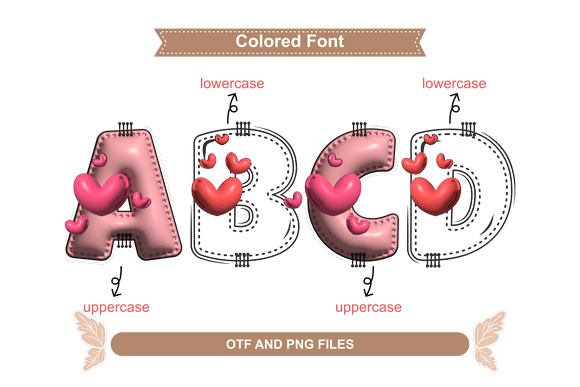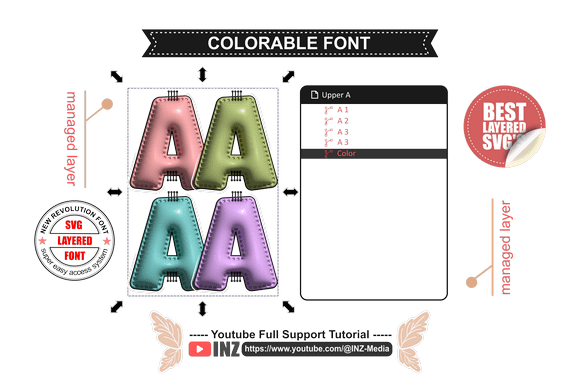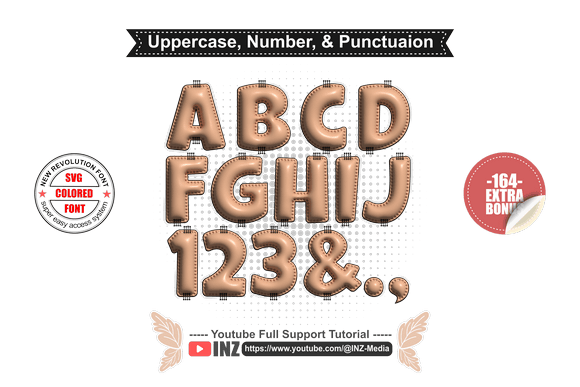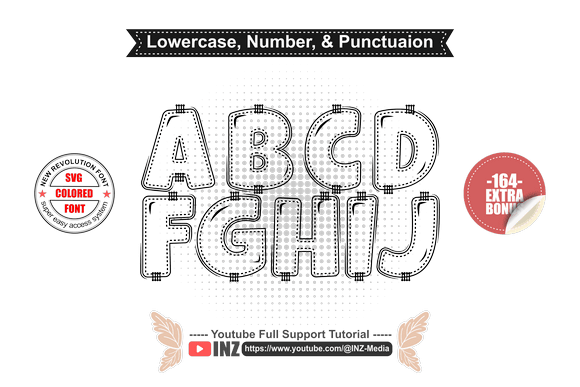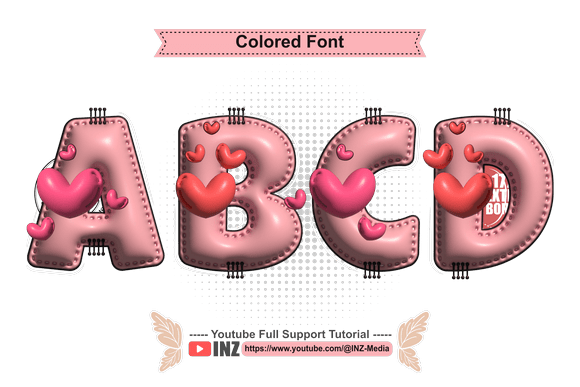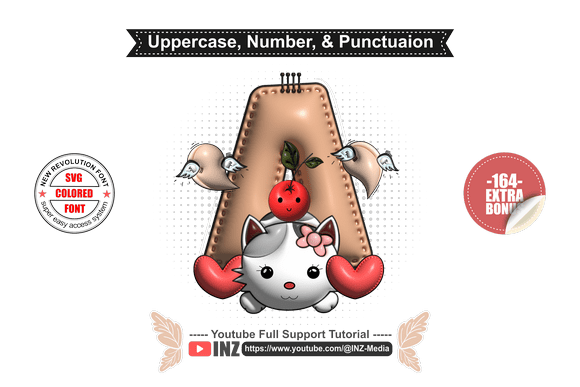
Adding a Pop of Personality with 3D Baloon Font
Have you ever been brainstorming ideas for a creative project and suddenly, a burst of inspiration hits you? Maybe it’s a bright color, a playful texture, or a unique typography that sparks your imagination. For designers, it’s that one element that can make all the difference between a good design and a great one.
One such typography that can add that extra oomph to your designs is the 3D Baloon Font. This cheerful typeface is designed to bring a touch of 3D charm to your work, making it perfect for posters, invitations, school projects, greeting cards, or creative artwork. With its playful and colorful feel, the 3D Baloon Font is a valuable addition to any designer’s toolkit.
Key Features of 3D Balloon Font
- Unique 3D Effect: The font features a unique 3D balloon effect, giving it a playful and eye-catching appearance.
3D Balloon Font Review
I recently had the chance to play around with the 3D Balloon Font, and I’m here to share my honest thoughts. ✨ One thing I really like about this font is its unique and playful vibe. It’s perfect for adding a pop of fun to any design project. The 3D effect adds a nice depth and dimension to the text, making it stand out.
Another great thing about this font is its versatility. It works well for both digital and print designs, and it’s suitable for a wide range of industries, from entertainment to education. The font is also highly customizable, with a variety of colors and sizes to choose from.
- ⚠️ The font may not be suitable for formal or professional designs, as it can come across as too playful or childish.
- ⚠️ The 3D effect can be overwhelming if used excessively, so it’s essential to balance it with simpler elements.
Overall, I think the 3D Balloon Font is a great addition to any designer’s toolkit. While it has some limitations, its unique style and versatility make it a great choice for a wide range of projects. With a little creativity and restraint, this font can add a lot of fun and personality to your designs.
Use the 3D Balloon Font in combination with other design elements, such as images and shapes, to add depth and interest.
Consider using the 3D Balloon Font for titles, headings, and other emphasis text to draw attention to important information.
Party invitations and decorations
Wedding invitations and decorations
Children’s birthday party decorations and invitations
Photography and graphic design projects
Alternatives to 3D Balloon Font for Designers
Great Vibes Font is a modern, handwritten font that can be used to create a playful and casual atmosphere. It’s ideal for designs that require a creative and relaxed tone, such as social media posts, advertising, or branding for a young audience.
Compared to 3D Balloon Font, Great Vibes Font has a more refined and elegant appearance, making it suitable for a wider range of designs. However, it lacks the 3D effect that makes 3D Balloon Font stand out.
Q: Can I customize the 3D Balloon Font to fit my brand’s color scheme and style?
Yes, you can customize the 3D Balloon Font to fit your brand’s color scheme and style. Many designers use font editing software to customize the color, size, and shape of the balloons, as well as the text characters. You can